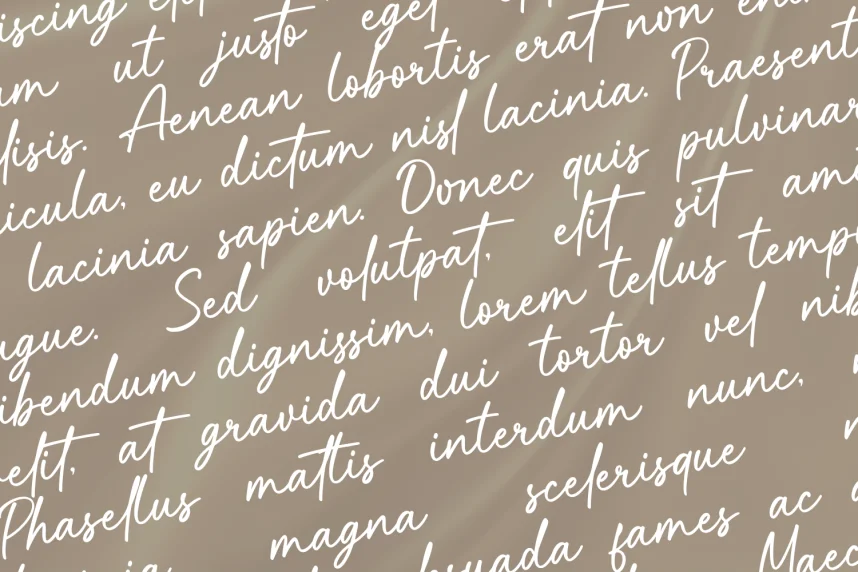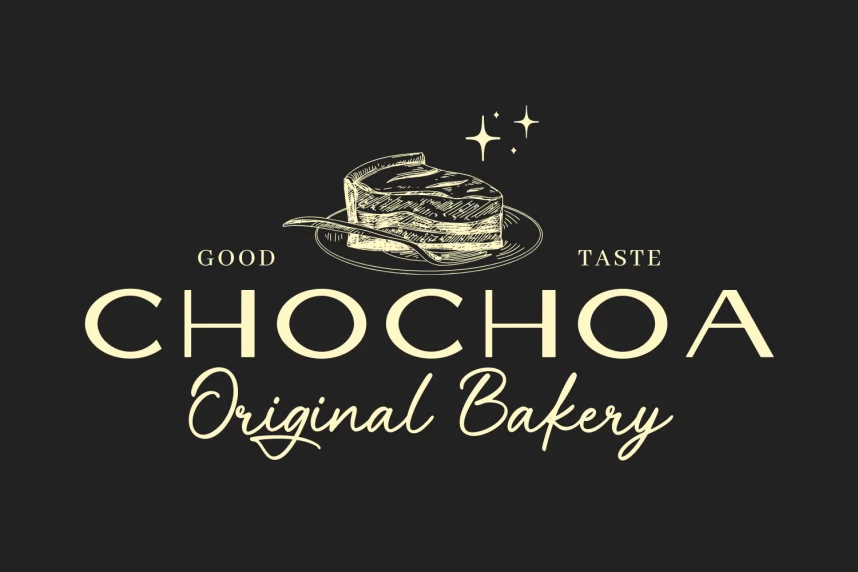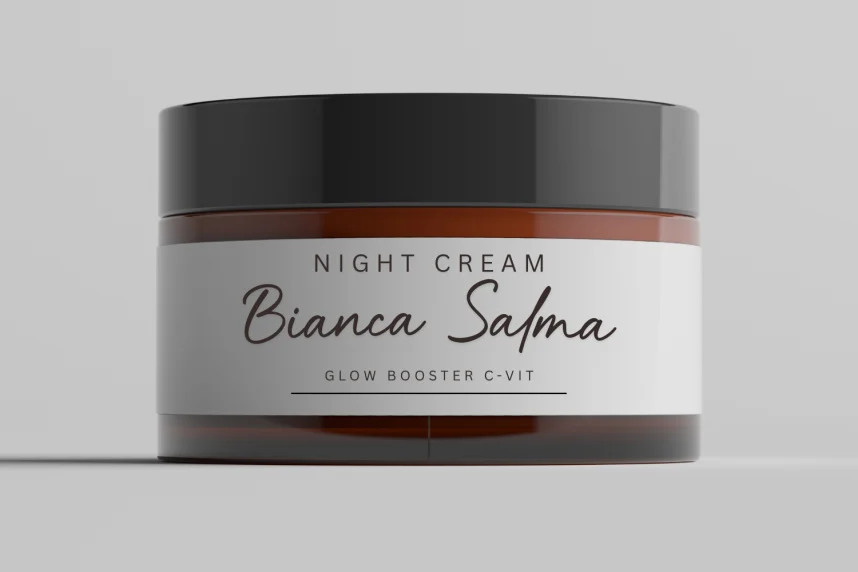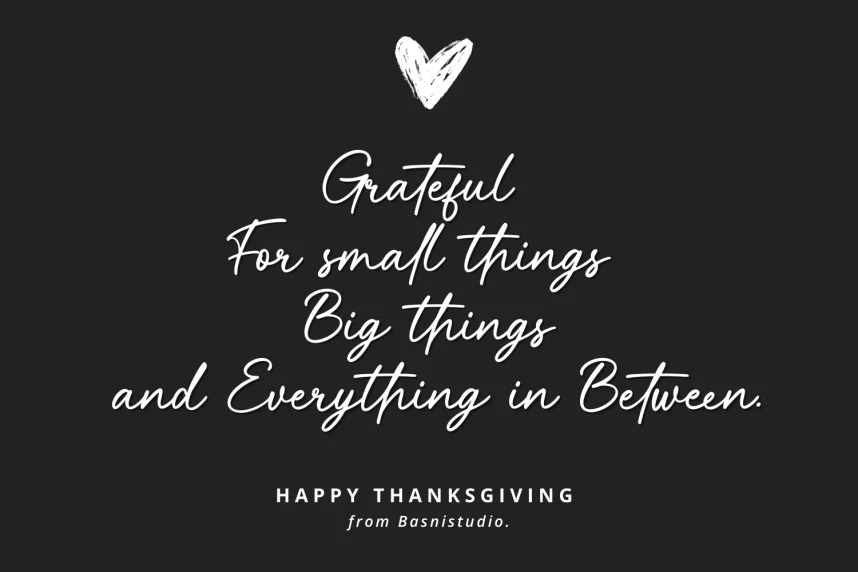
Mickelhokan targets projects that require a natural handwritten feel without sacrificing legibility.
This typeface belongs to the handwritten font category, featuring uneven strokes, natural curves, and subtle variations in letterforms. These traits mimic real handwriting while remaining readable.